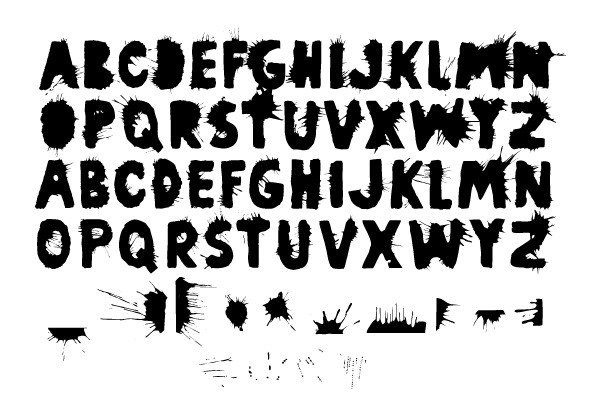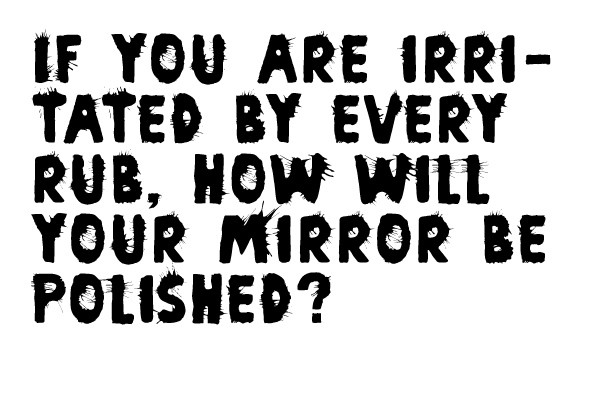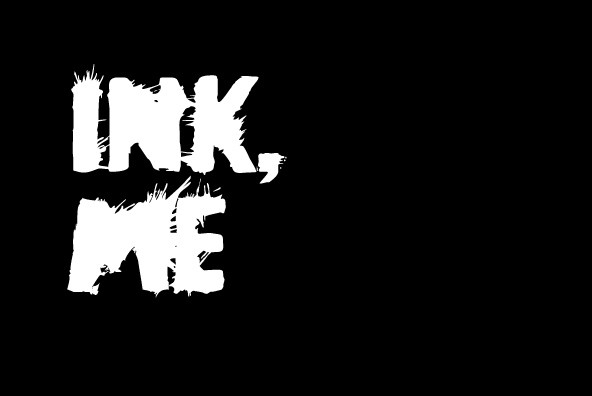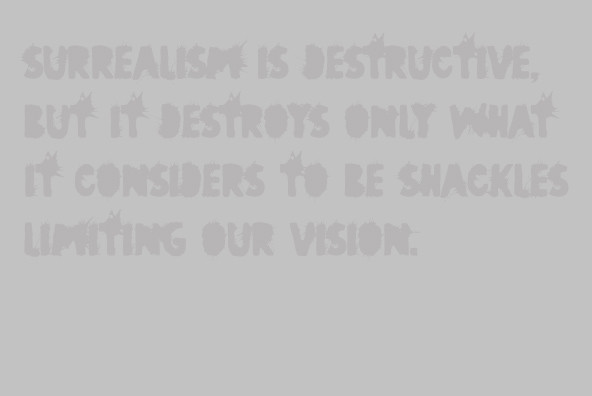
Pimba is a original font design full of all sorts of craziness. All characters were designed from handmade rubber stamps and printed with much ink, creating this intense splish-splash effect of letters.